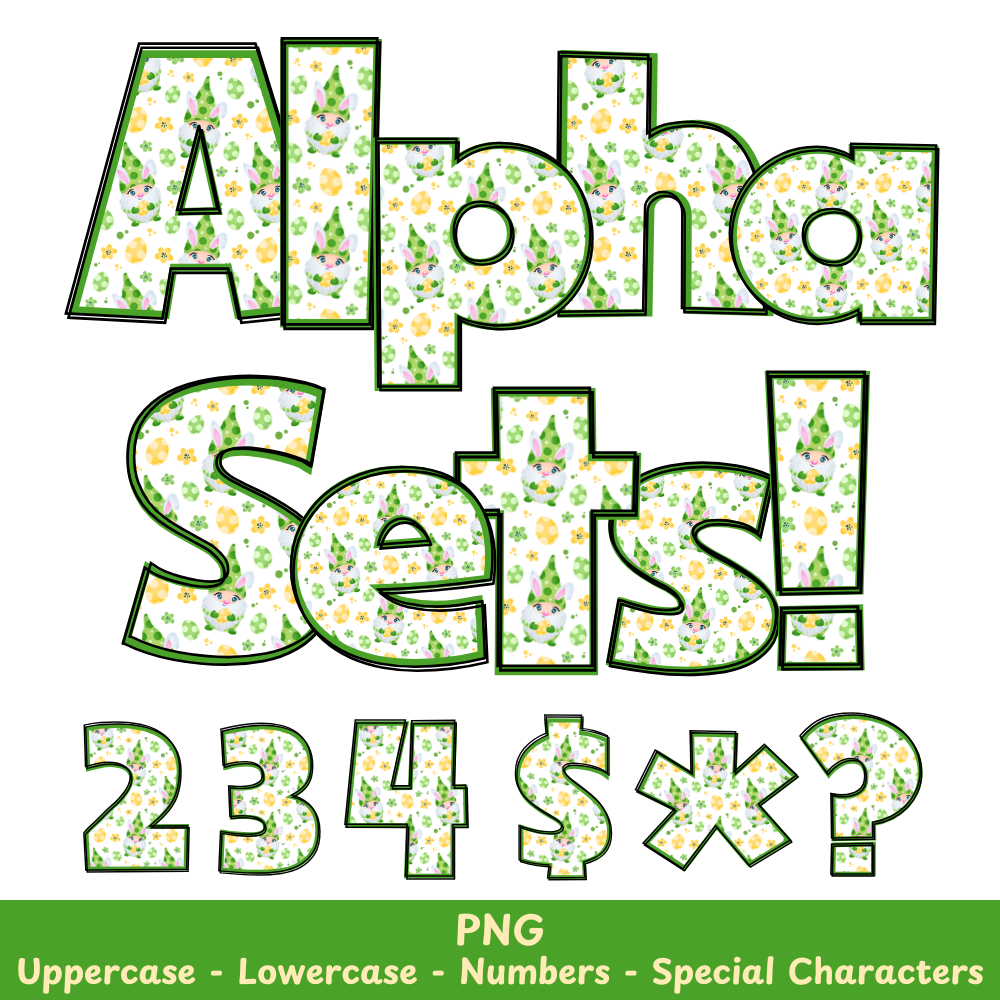
Green Easter Gnome PNG Font
Green Easter Gnome Alpha Set PNG Font Pack
Craft the perfect Easter-themed creations with the Green Easter Gnome PNG Font. Designed for use in crafts, sublimation, and more, this font adds a touch of whimsy to any project. With its vibrant green color and high-quality PNG files, this font is a must-have for all your Easter designs. Add it to your collection today!